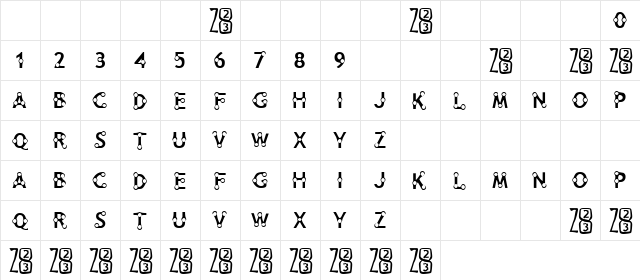
Zone23_pheromones Normal
Design Context for Zone23_pheromones Typeface
Zone23_pheromones is a composed and adaptable typeface that performs quietly and consistently across a wide range of design contexts.